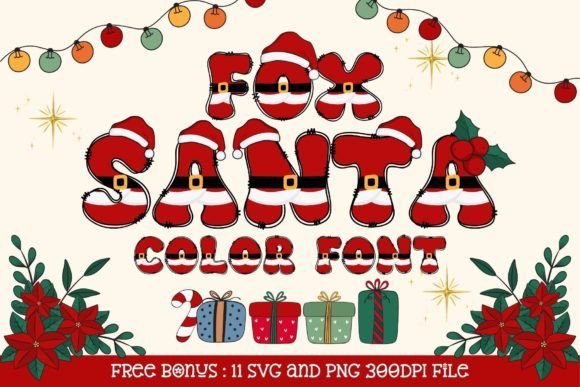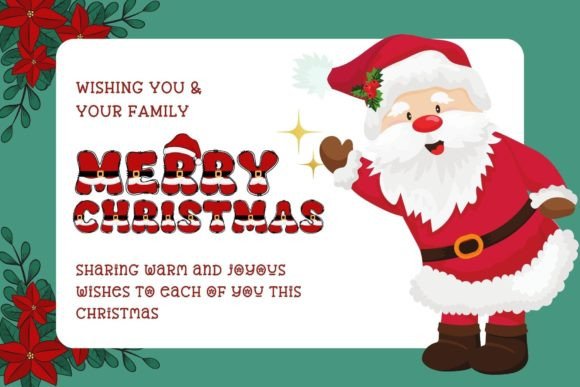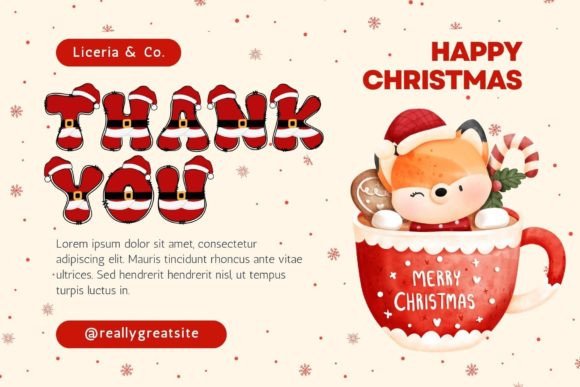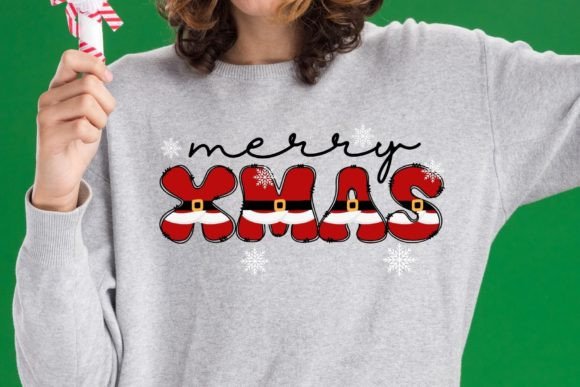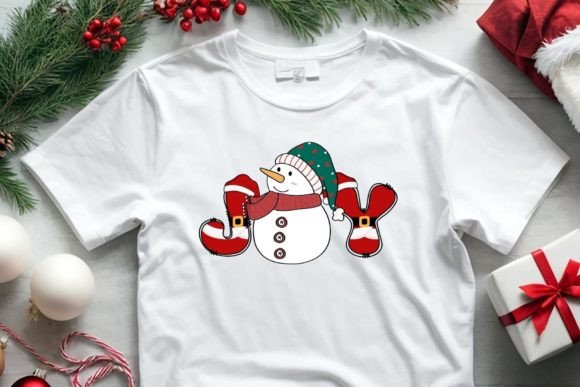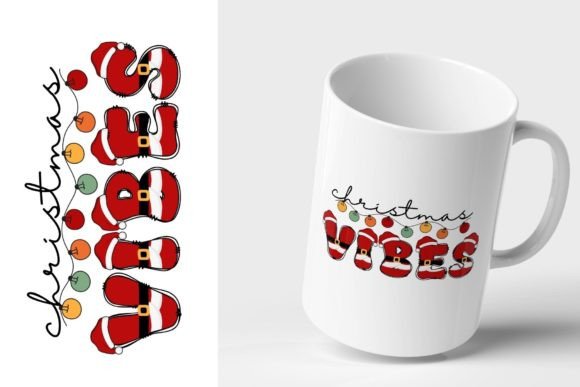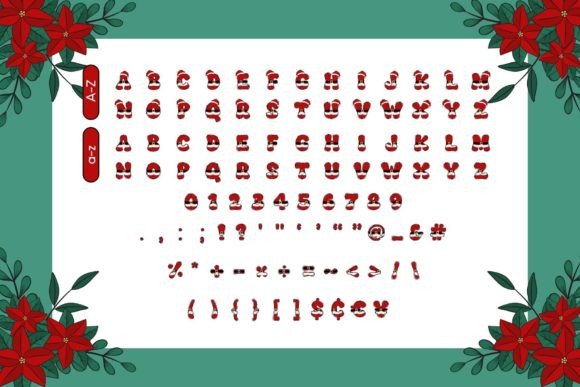
Deck the Halls with Whimsy: Introducing Fox Santa Font
As the holiday season approaches, designers often find themselves brainstorming unique ideas to bring joy and cheer to their projects. For many, it’s the little details that make all the difference – a sprinkle of festive magic here, a dash of winter wonder there. For those seeking to infuse their holiday designs with a playful touch, we have just the thing: Fox Santa Font.
This delightful font is specially crafted to add a jolly old Santa Claus to every letter from A to Z, complete with a festive Santa hat. With its whimsical and decorative style, Fox Santa Font is the perfect addition to your holiday-themed creations. Whether you’re designing greeting cards, posters, banners, invitations, or any other project that needs a touch of holiday cheer, Fox Santa Font is sure to elevate your designs and bring a smile to your viewers’ faces.
Key Features of Fox Santa Font
- Font Family: Fox Santa Font is a unique, handwritten font designed to evoke a playful and festive atmosphere. It is available in a single font family.
- Unique Characteristics: The font features a distinctive, handwritten style with irregular letterforms and subtle flourishes, making it perfect for adding a touch of whimsy and personality to designs.
Designer Review: Fox Santa Font
First off, let’s talk about what works well in the Fox Santa Font. ✨ The font’s unique and playful design makes it perfect for creating a whimsical atmosphere in holiday-themed designs. The bold and festive feel of the font is sure to catch the eye of anyone who sees it. ✨ Additionally, the font’s versatility allows it to be used in a variety of contexts, from social media graphics to packaging design.
The Fox Santa Font is available in a range of weights and styles, making it easy to find the perfect fit for any project. The font’s high level of detail and intricate design elements make it stand out from more generic holiday fonts. ✨ Overall, the Fox Santa Font is a great choice for anyone looking to add a touch of festive flair to their designs.
- ⚠️ Limited legibility in smaller font sizes: While the Fox Santa Font is perfect for larger designs, its intricate details can make it difficult to read in smaller font sizes.
- ⚠️ May not be suitable for formal designs: The font’s playful and festive feel may not be suitable for more formal or professional designs.
Overall, I would highly recommend the Fox Santa Font for any holiday-themed design project. While it may have some limitations, its unique design and versatility make it a great choice for anyone looking to add a touch of festive flair to their designs.
The Fox Santa Font is perfect for:
- Holiday cards and invitations
- Seasonal social media graphics
- Festive posters and flyers
- Christmas or New Year’s Eve party invitations